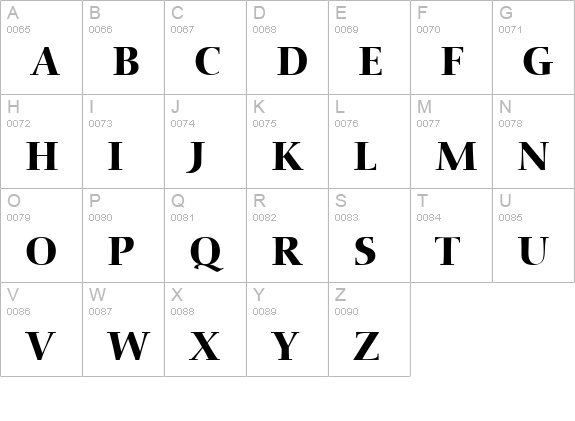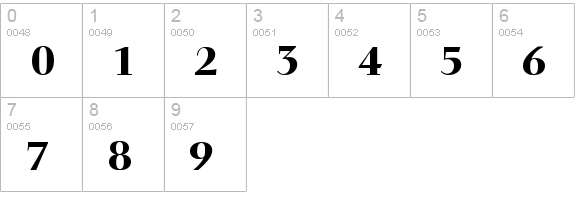
Nofret Medium Font Details
Nofret Medium is a balanced, medium-weight variant in the Nofret typeface family \xE2\x80\x94 well suited to sub-headlines, navigation, and balanced editorial work.
Nofret Medium font is a stylish and versatile typeface that exudes elegance and sophistication. With its clean lines and balanced proportions, this font is perfect for a wide range of design projects, from branding to editorial layouts. The Nofret Medium font strikes the perfect balance between modernity and classic design elements, making it a timeless choice for any designer. What sets Nofret Medium font apart is that it is not only visually appealing but also free to download at FontsMarket.com. This means that you can access this high-quality font without any cost, making it a valuable addition to your font library. Whether you are working on a personal project or a commercial design, Nofret Medium font offers a professional and polished look that will elevate your work to the next level. Download Nofret Medium font today and see for yourself the impact it can have on your designs.